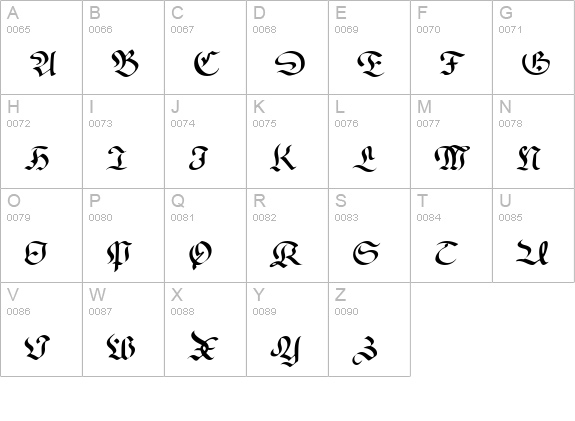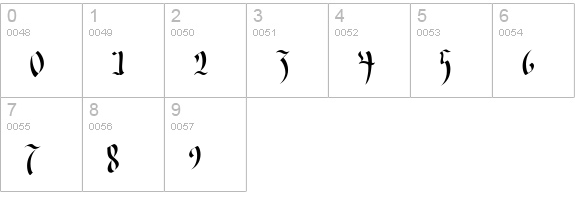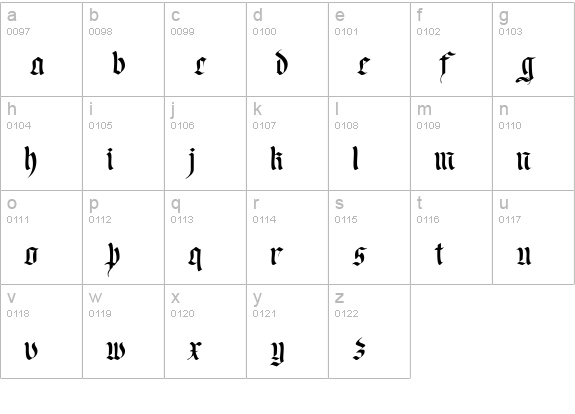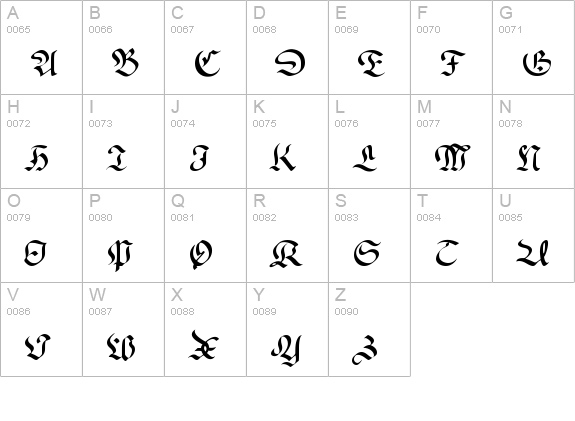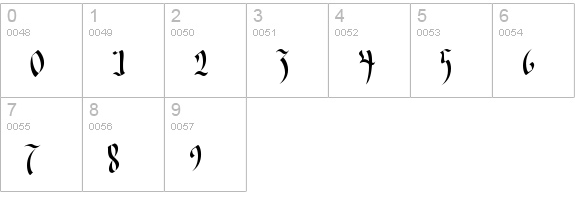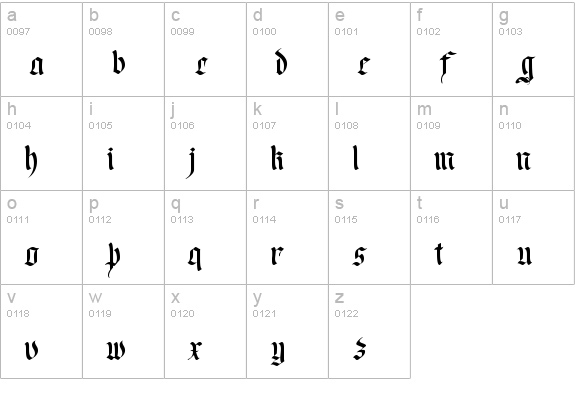
Faustus Normal is the standard, neutral variant in the Faustus typeface family \xE2\x80\x94 well suited to general body text, paragraphs, and standard typographic work.
Faustus Normal font is a timeless and elegant typeface that exudes sophistication and charm. With its clean lines and classic design, Faustus Normal is perfect for a wide range of projects, from formal invitations to branding materials. This versatile font strikes the perfect balance between traditional and modern, making it suitable for both print and digital applications. The best part? Faustus Normal font is completely free to download at FontsMarket.com. Whether you're a designer looking to add a touch of class to your work or an individual in search of a stylish font for personal projects, Faustus Normal is a fantastic choice. Don't miss out on the opportunity to enhance your designs with this exquisite font, available for free at FontsMarket.com.